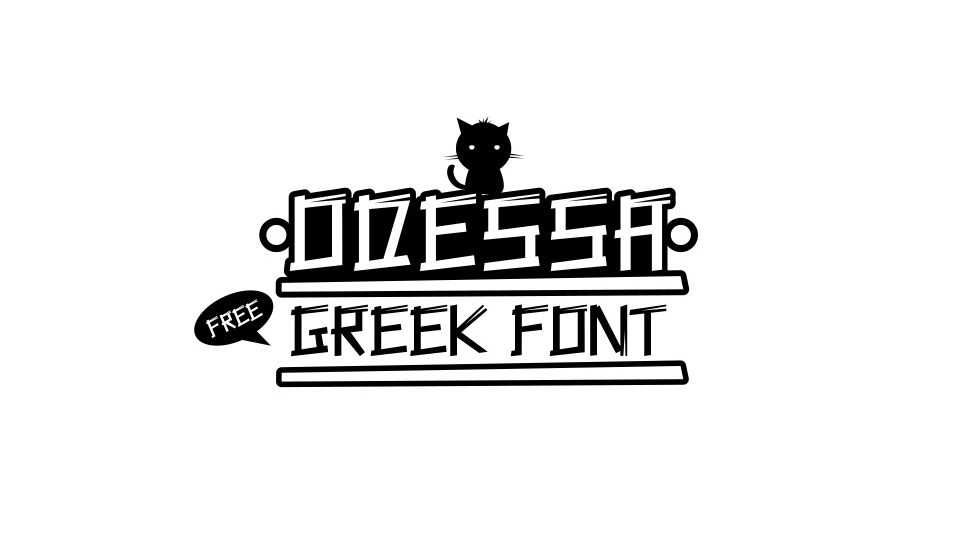
DOwnload Odessa font, a comic display typeface with Latin and Greek support. Odessa font perfectly fits for posters, headlines and other display purposes.